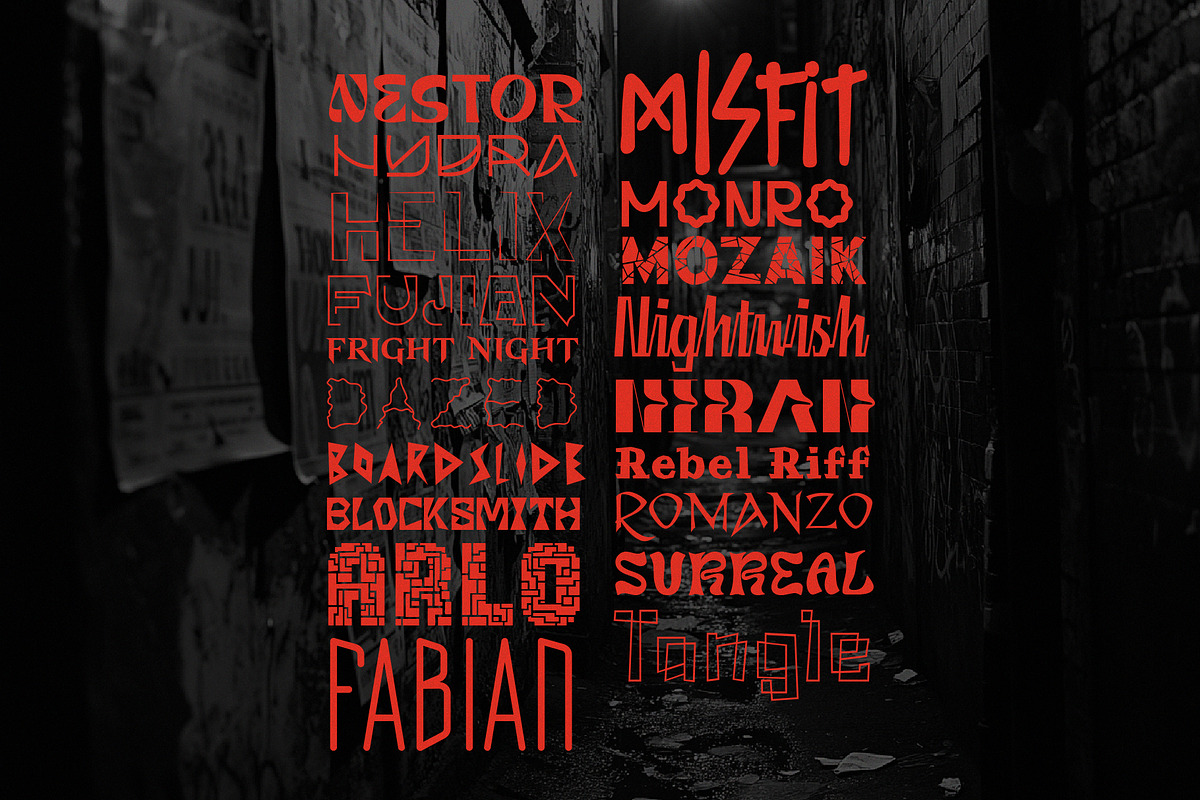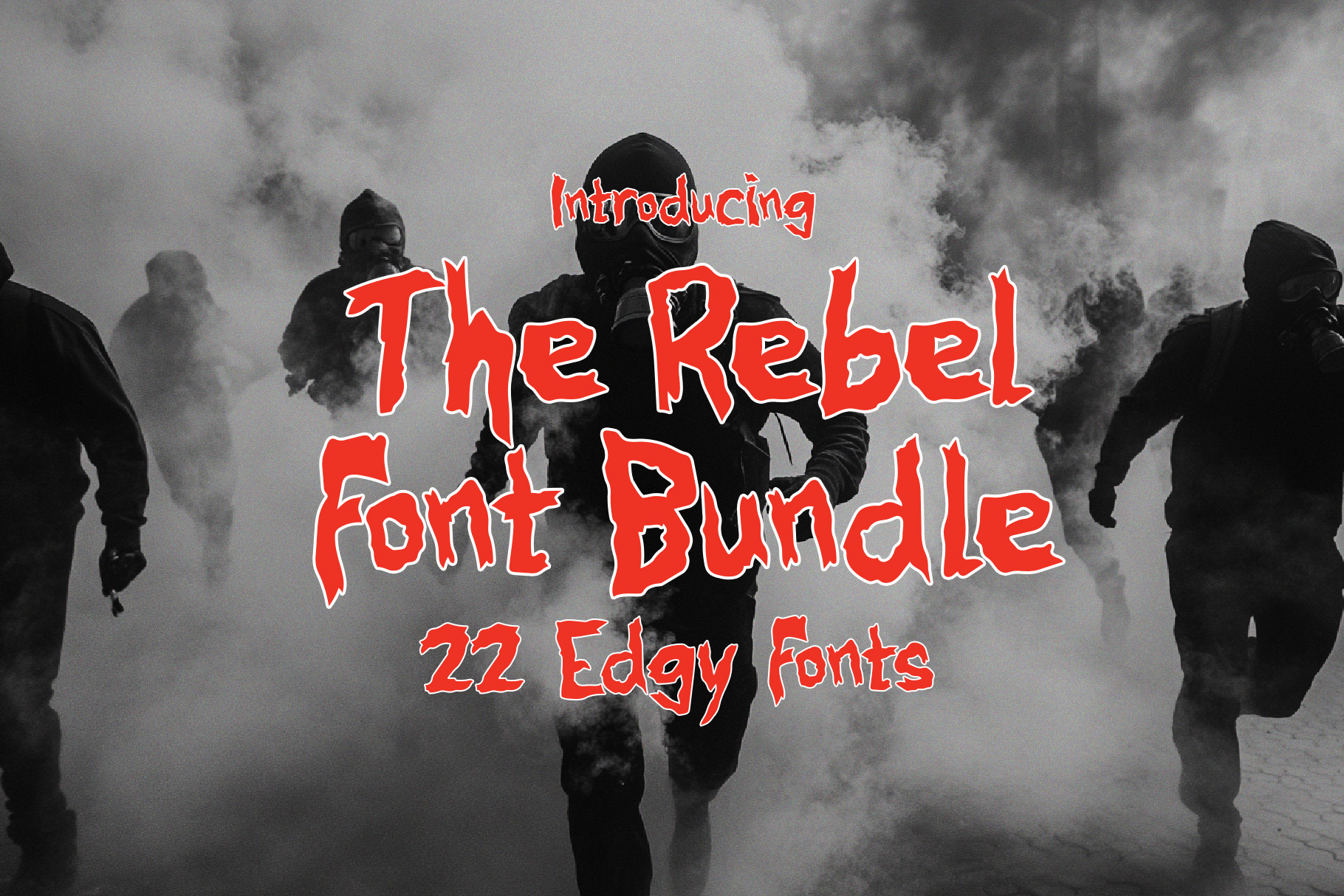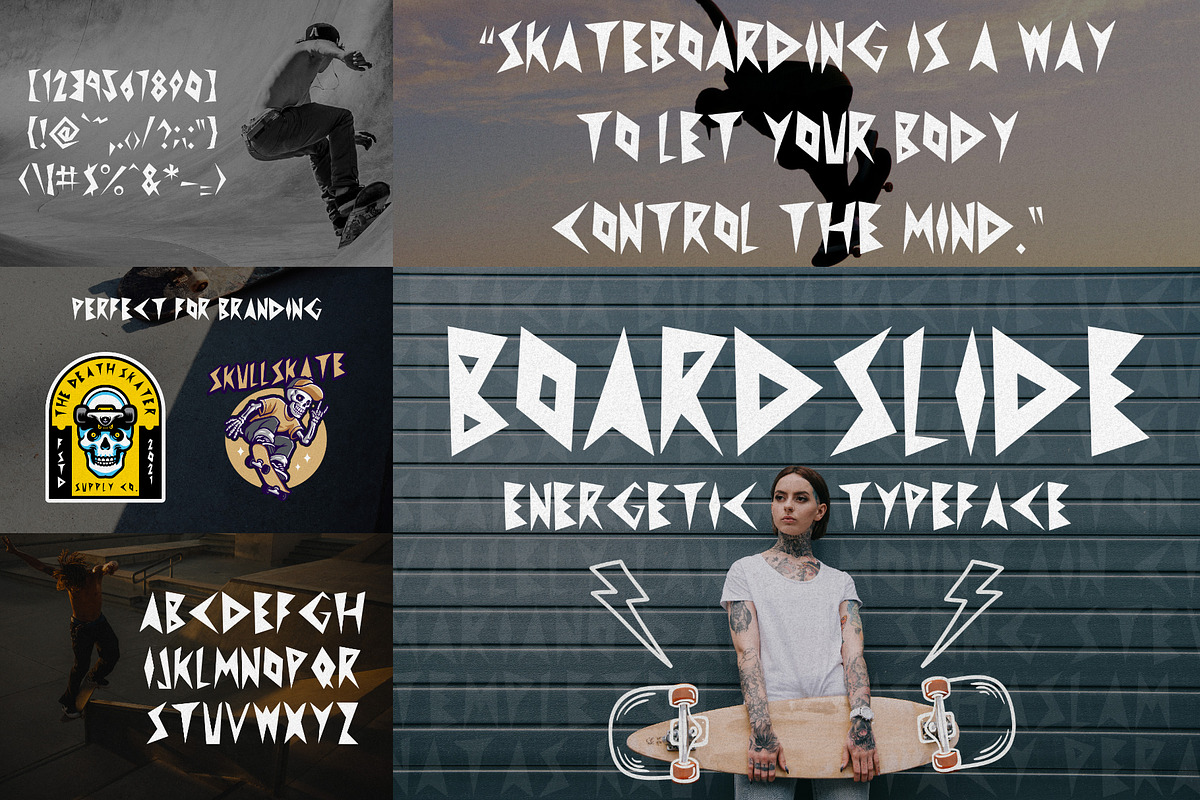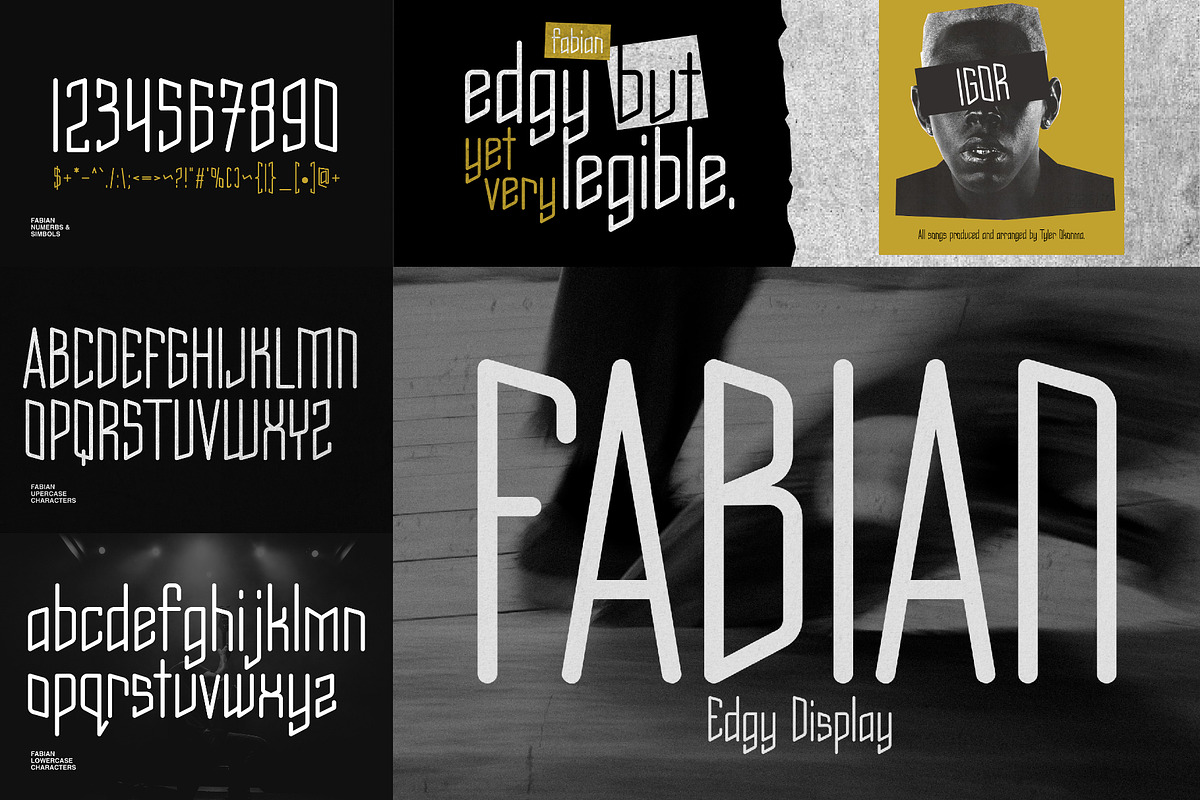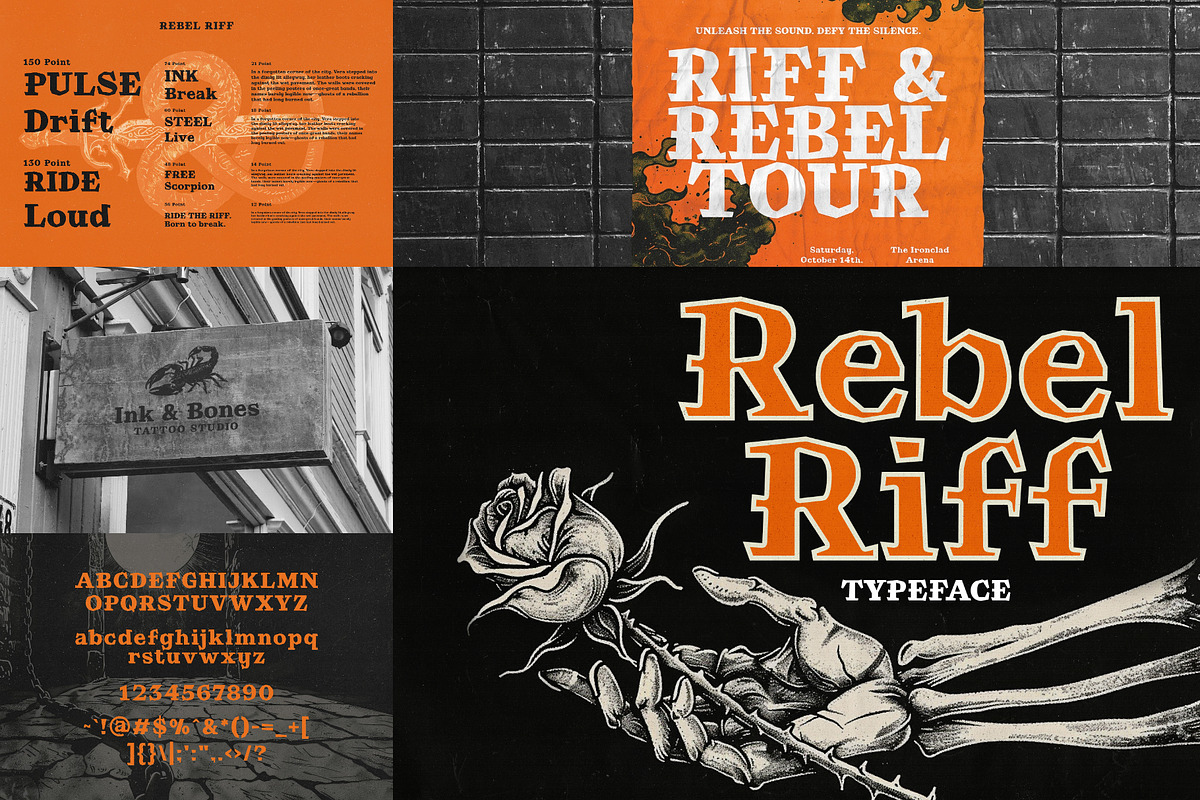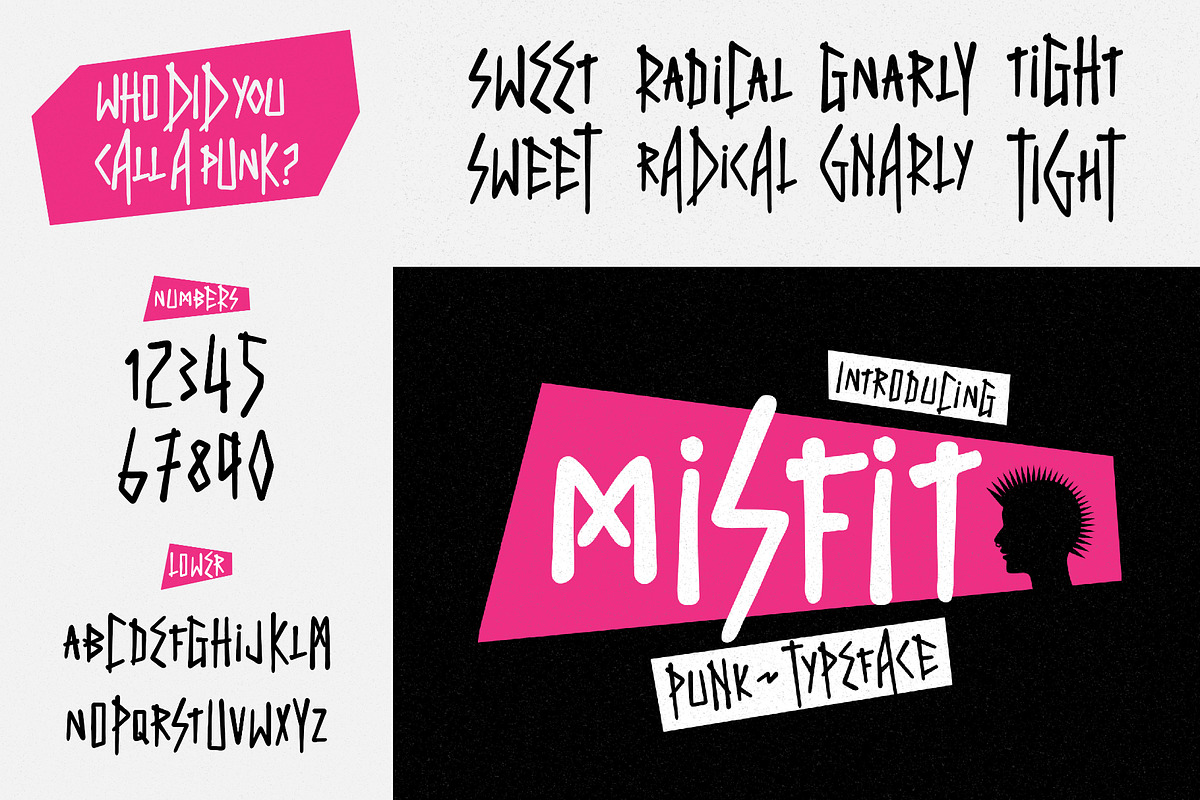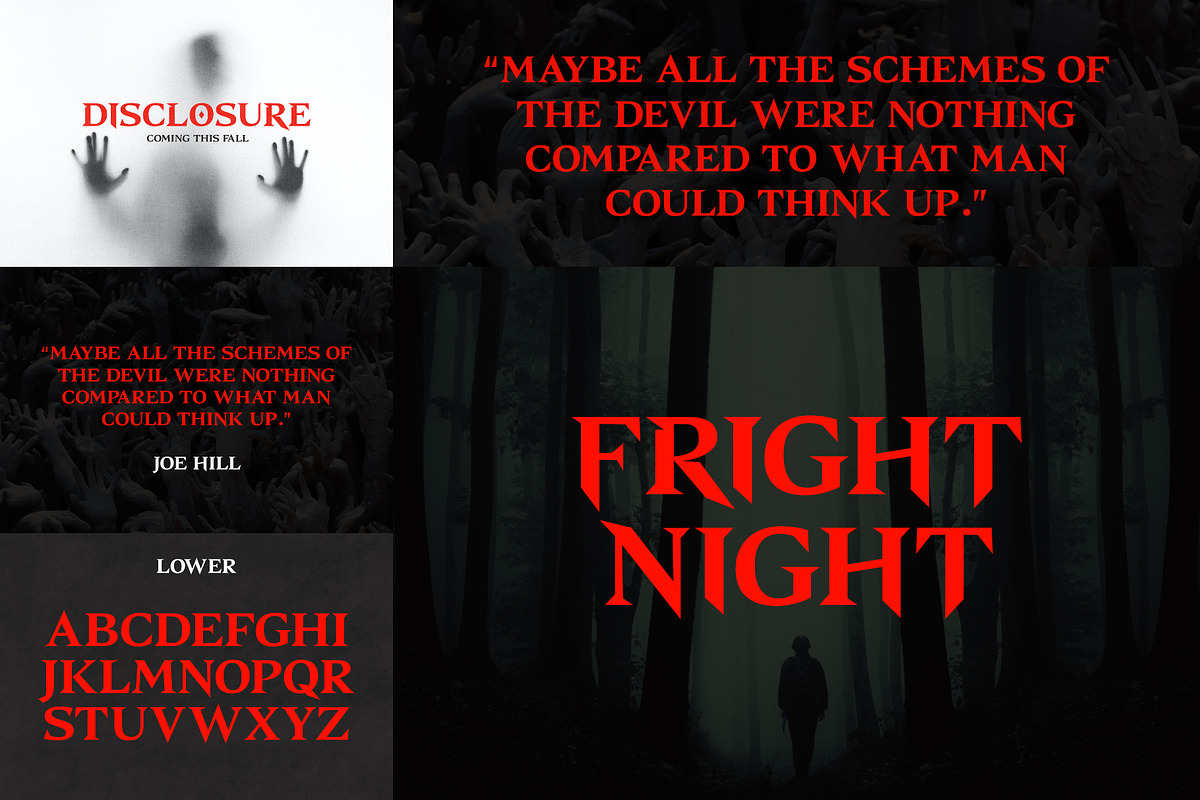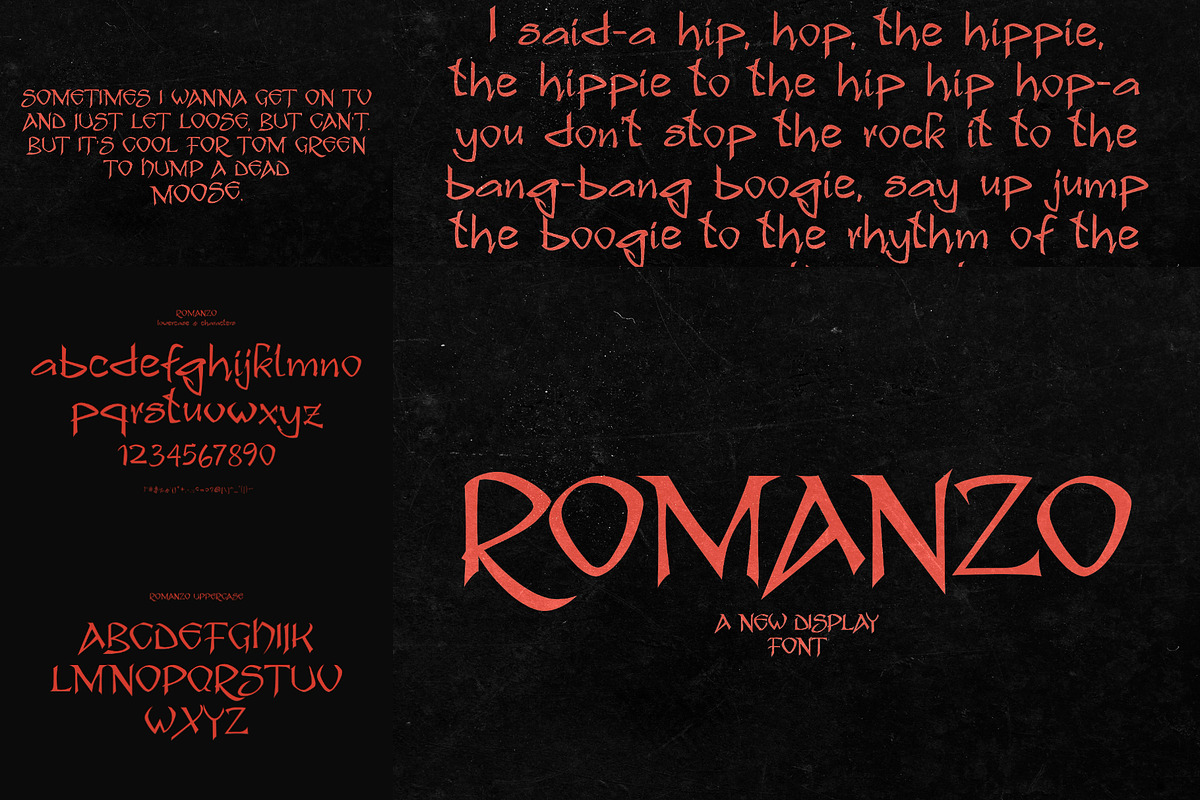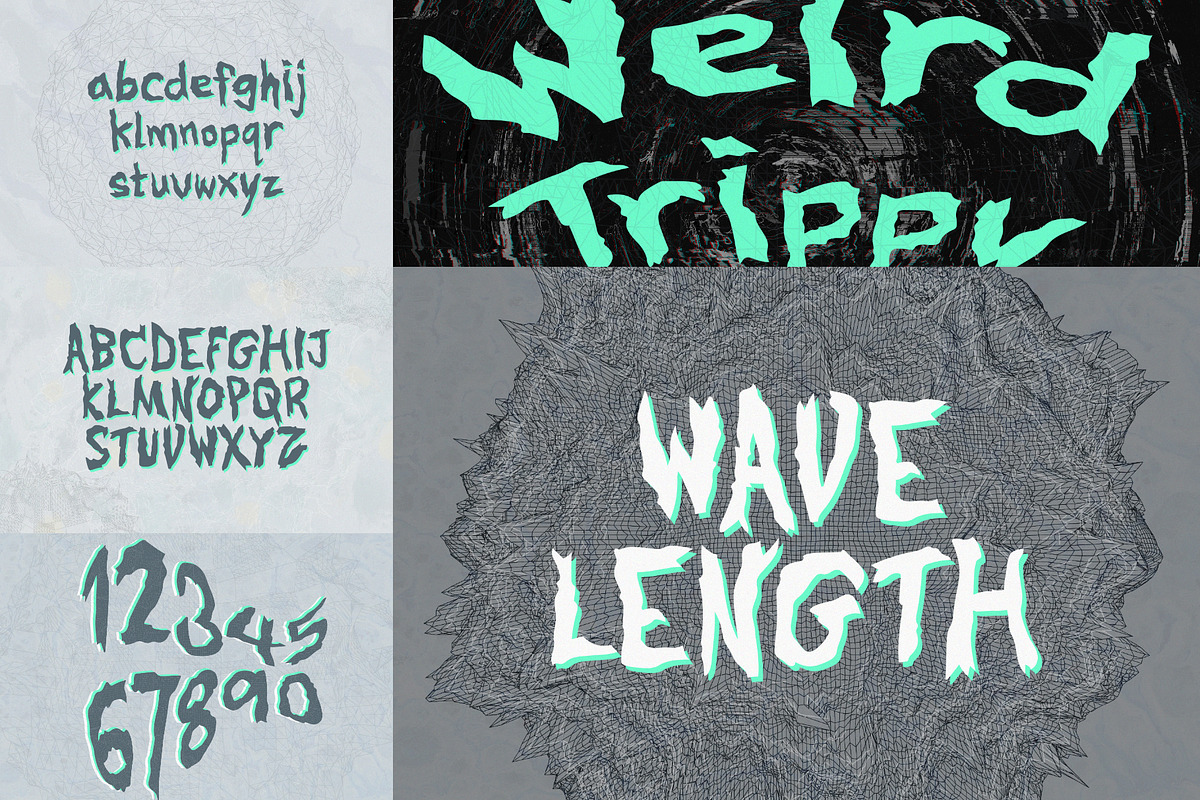
Rebel Font Bundle - 22 Edgy Fonts
Typography was never meant to be tamed. The Rebel’s Typeface Collection is here to shatter the norm, a curated set of 22 fearless fonts designed to defy tradition, challenge expectations, and carve a new path in the world of design.
These aren’t your everyday typefaces—they’re misfits, outlaws, and rule-breakers. Gritty, raw, and unapologetic, each font in this collection is built to stand out, injecting your designs with an untamed spirit that refuses to conform.
Whether you’re crafting punk rock posters, dystopian branding, underground zines, rebellious apparel, or anything that demands attention, this bundle is your secret weapon. This is not just typography—it’s an act of defiance.
- 22 Unique & Disruptive Fonts – No generic, cookie-cutter typefaces here. Just raw, bold attitude.
- Perfect for Unorthodox Designs – Streetwear, metal bands, dark branding, gaming, and anything that breaks boundaries.
- Authentically Edgy Aesthetic – Grunge, punk, brutalist, cyber, and rebellious themes all in one pack.
This isn’t a font bundle—it’s a revolution in lettering.